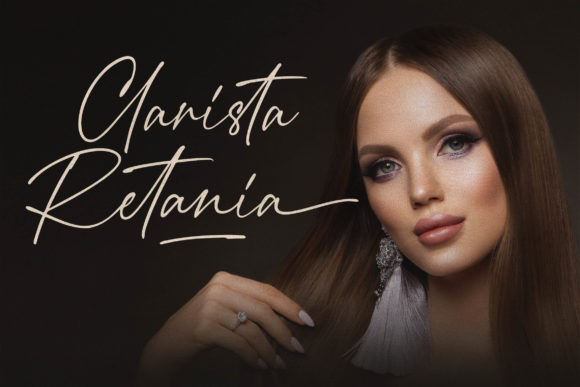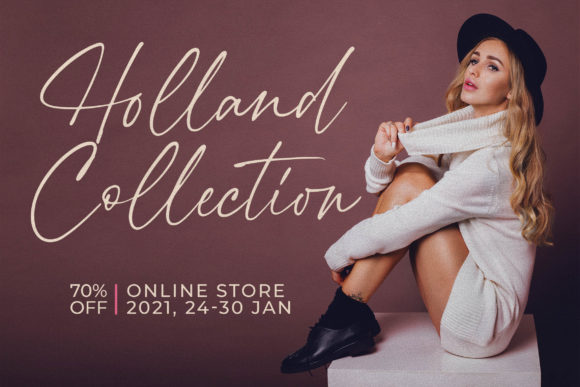
Mondeline Font
db-ku.com - Script & Handwritten -- Mondeline is an elegant and cursive handwritten font. It is PUA encoded which means you can access all of the glyphs and swashes with ease! It maintains its classy calligraphic influences while feeling contemporary and fresh. Fall in love with this font and bring your projects to the highest levels!